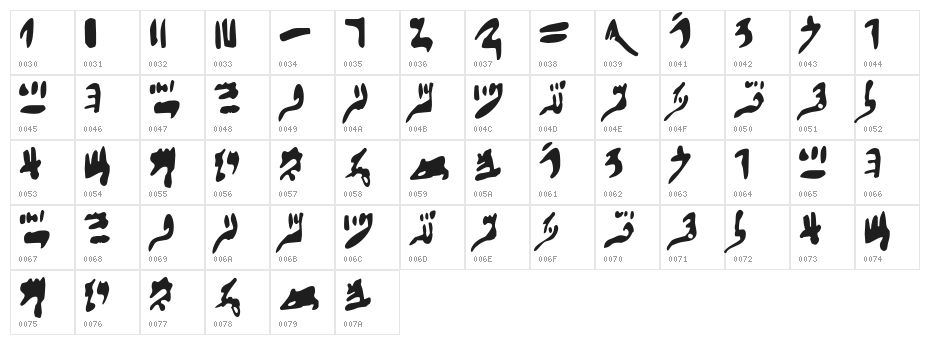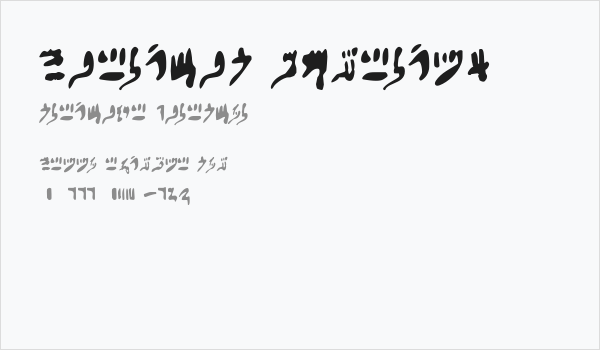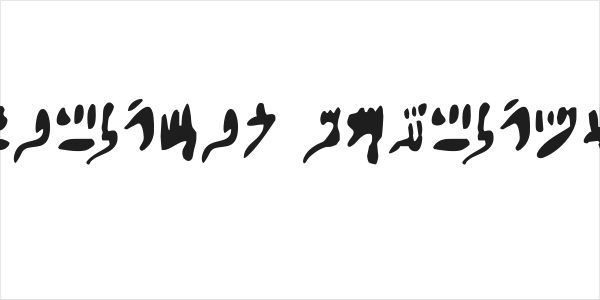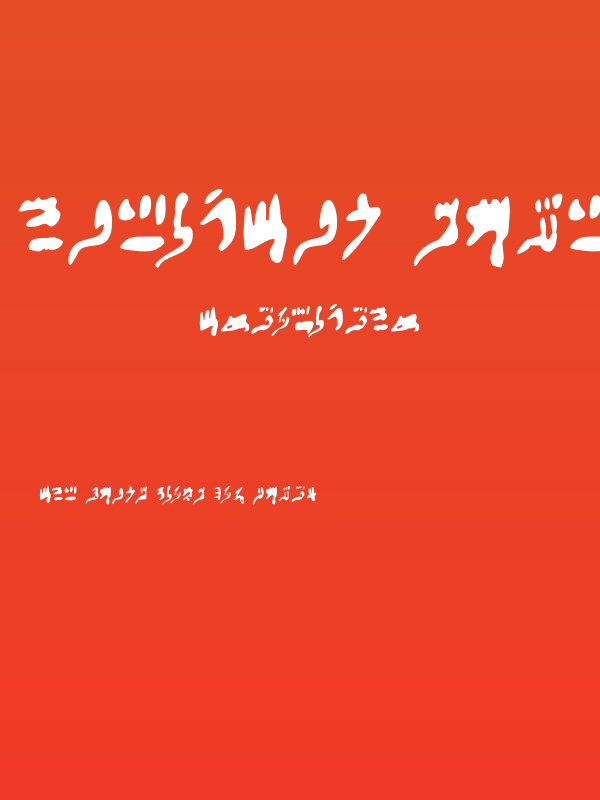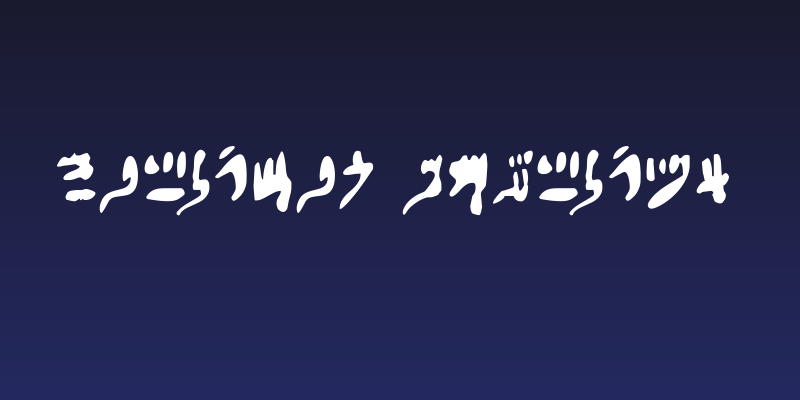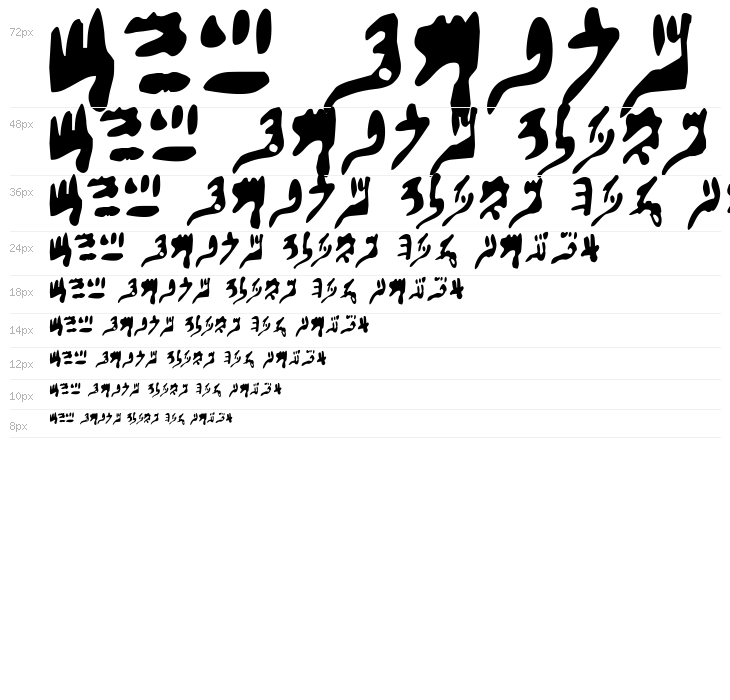
Hieratic Numerals Font
Hieratic Numerals Description
This script is a representation of ancient Egyptian hieratic numerals, characterized by its flowing, cursive style that was used for religious and administrative texts. The script is composed of various strokes and curves that form distinct numeral symbols, each representing different values. The design is intricate and requires a keen eye to distinguish between the subtle variations in each numeral. The script is historically significant and offers a glimpse into the numerical system of ancient Egypt, showcasing a unique blend of artistry and functionality.
Overall StyleHistorical, Artistic
Use CaseEducational materials, Historical research, Artistic projects
Proposed ProjectsIdeal for historical research projects, educational materials on ancient Egypt, or artistic endeavors that aim to incorporate ancient scripts.